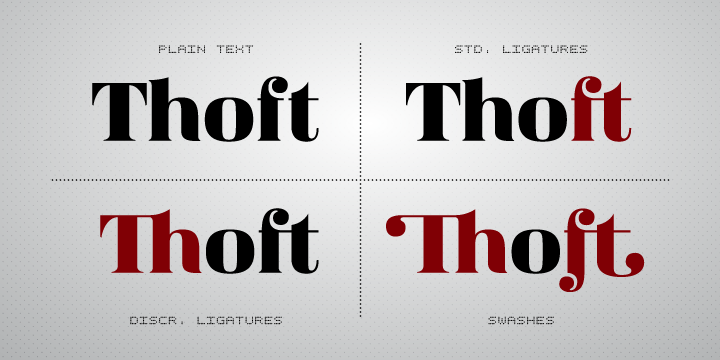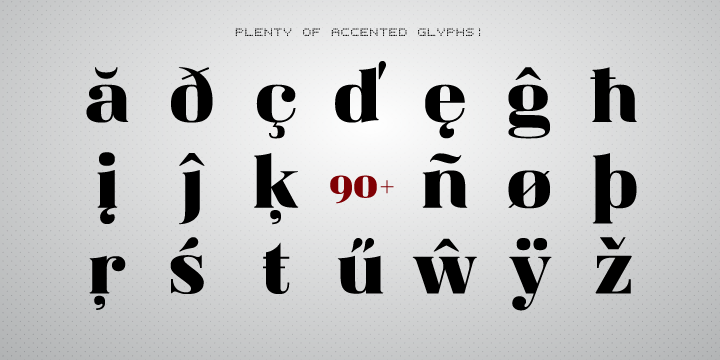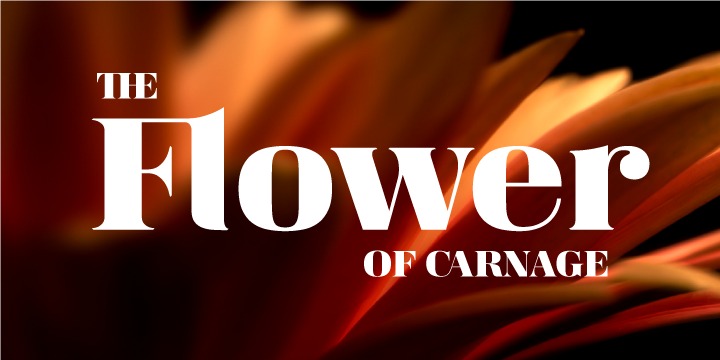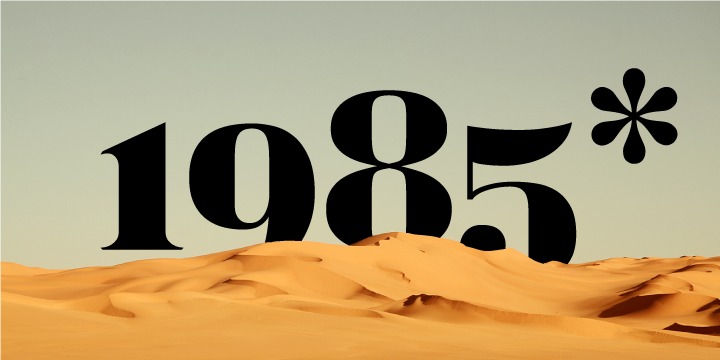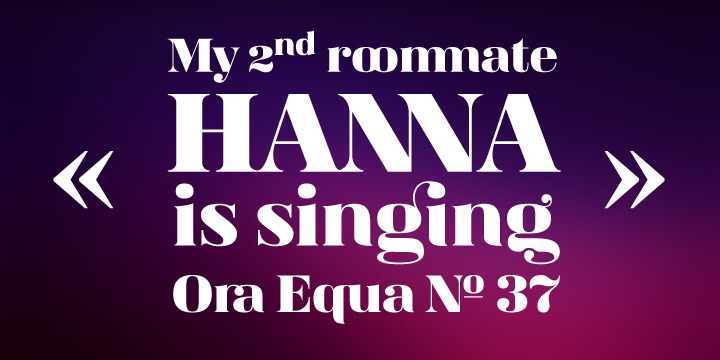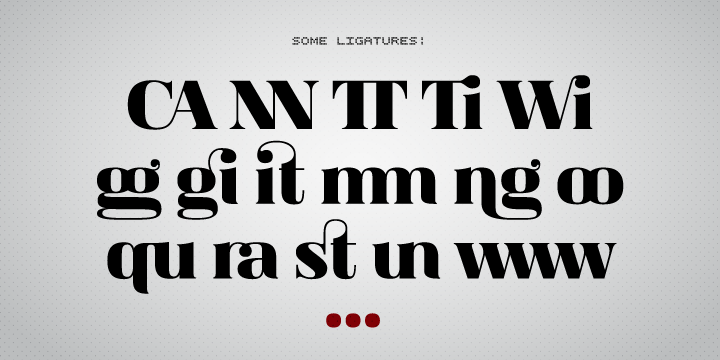
Magnel Font
A rare occasion – typeface from Lithuania. One year in the making, Magnel (previously called Magnola) is designed for headlines, posters and big sizes.
Besides most Latin alphabet languages, it packs dozens of (accented) ligatures and every single letter has a smart swash variant that when enabled in OT-aware application, conveniently occurs at the start/end of line.
Other OT features include: lining/oldstyle numerals, ordinals, popular fractions, capital spacing, scientific superiors/inferiors.